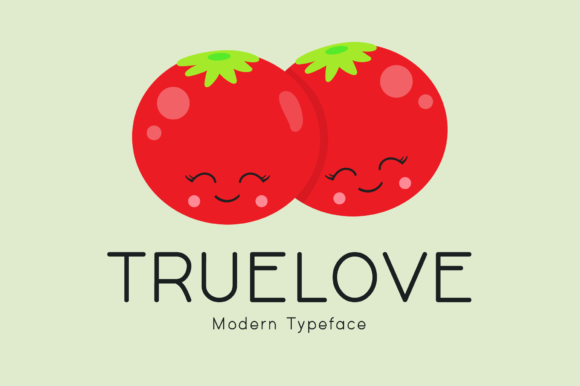
**Introducing Truelove Font: The Epitome of Romantic, Sophisticated Design**
Indulge in the allure of Truelove Font, a captivating display font that evokes the very essence of romance and elegance. Its graceful curves and impeccable detailing will enchant your creative endeavors, transforming them into masterpieces that touch the heart.
**A Poetic Symphony for Your Visual Expressions**
Truelove Font is not merely a typeface; it is a symphony of visual artistry. Each letterform dances across the canvas, whispering tales of love and inspiration. Its delicate strokes and harmonious proportions create an ethereal ambiance, inviting you to express your emotions with unparalleled beauty and grace.
**Elevate Your Stationery with Timeless Charm**
Envision the allure of your wedding invitations, the warmth of your personal letters, and the sophistication of your business cards, all adorned with the timeless beauty of Truelove Font. Its elegant lines and romantic overtones will elevate your stationery to extraordinary heights, leaving an unforgettable impression on every recipient.
**Evoke Emotions through Enchanting Logos**
Unleash the power of Truelove Font to create logos that resonate with your audience. Its captivating curves and evocative charm will draw them in, conveying your brand's story with a touch of elegance and a dash of whimsy. Whether you seek a chic and stylish logo for a fashion boutique or a romantic and ethereal symbol for a wedding planner, Truelove Font will effortlessly capture the essence of your vision.
**Adorn Your T-shirts with Expressions of Love**
Let your t-shirts speak volumes with the eloquence of Truelove Font. Its graceful lines and romantic overtones will transform simple garments into wearable works of art. Celebrate love, spread joy, and make a statement with t-shirts that express your individuality and passion.
**Unleash Creativity in Paper and Print Design**
Harness the versatility of Truelove Font to breathe life into your paper and print designs. Its intricate details and flowing lines will add a touch of sophistication to brochures, flyers, and posters, capturing attention and inspiring action. Whether you seek to create ethereal wedding programs or eye-catching marketing materials, Truelove Font will elevate your designs to new levels of beauty and impact.
**Enhance Your Website with an Unforgettable Header**
Welcome your visitors with the warmth and elegance of Truelove Font as your website header. Its graceful curves and romantic overtones will create an unforgettable first impression, inviting users to explore your site and delve into your captivating content. Let Truelove Font be the gateway to a digital world that is both visually stunning and emotionally engaging.
**Create Picture-Perfect Photo Frames**
Preserve your precious memories in frames adorned with the romantic charm of Truelove Font. Its intricate details and timeless appeal will enhance your photographs, transforming them into cherished keepsakes that evoke a sense of nostalgia and love. From family portraits to wedding day memories, Truelove Font will add a touch of elegance to your most cherished moments.
**Captivate Audiences with Eye-Catching Flyers**
Capture attention and inspire action with flyers designed with the allure of Truelove Font. Its flowing lines and enchanting curves will draw eyes to your message, ensuring maximum impact. Whether you are promoting a special event, announcing a new product launch, or simply sharing important information, Truelove Font will elevate your flyers to the realm of unforgettable marketing tools.
**Create Music Covers that Resonate**
Let the melodies of your music dance across the enchanting canvas of Truelove Font. Its graceful curves and romantic overtones will create album covers that are both visually stunning and emotionally evocative. Whether you seek to capture the raw energy of rock, the ethereal beauty of classical music, or the infectious rhythms of pop, Truelove Font will amplify the power of your music and leave a lasting impression on your listeners.
**Design Posters that Inspire and Ignite**
Inspire, motivate, and captivate with posters adorned with the eloquence of Truelove Font. Its flowing lines and graceful curves will create visuals that command attention and ignite the imagination. Whether you are creating motivational quotes, promoting an upcoming event, or simply sharing your vision with the world, Truelove Font will elevate your posters to the status of artistic masterpieces.
**Image Sliders with Unforgettable Impact**
Create image sliders that captivate and engage with the alluring charm of Truelove Font. Its graceful curves and romantic overtones will transform your images into seamless visual narratives, guiding users through your message with elegance and sophistication. Showcase your products, tell your brand story, or simply create stunning visual experiences that leave a lasting impression.